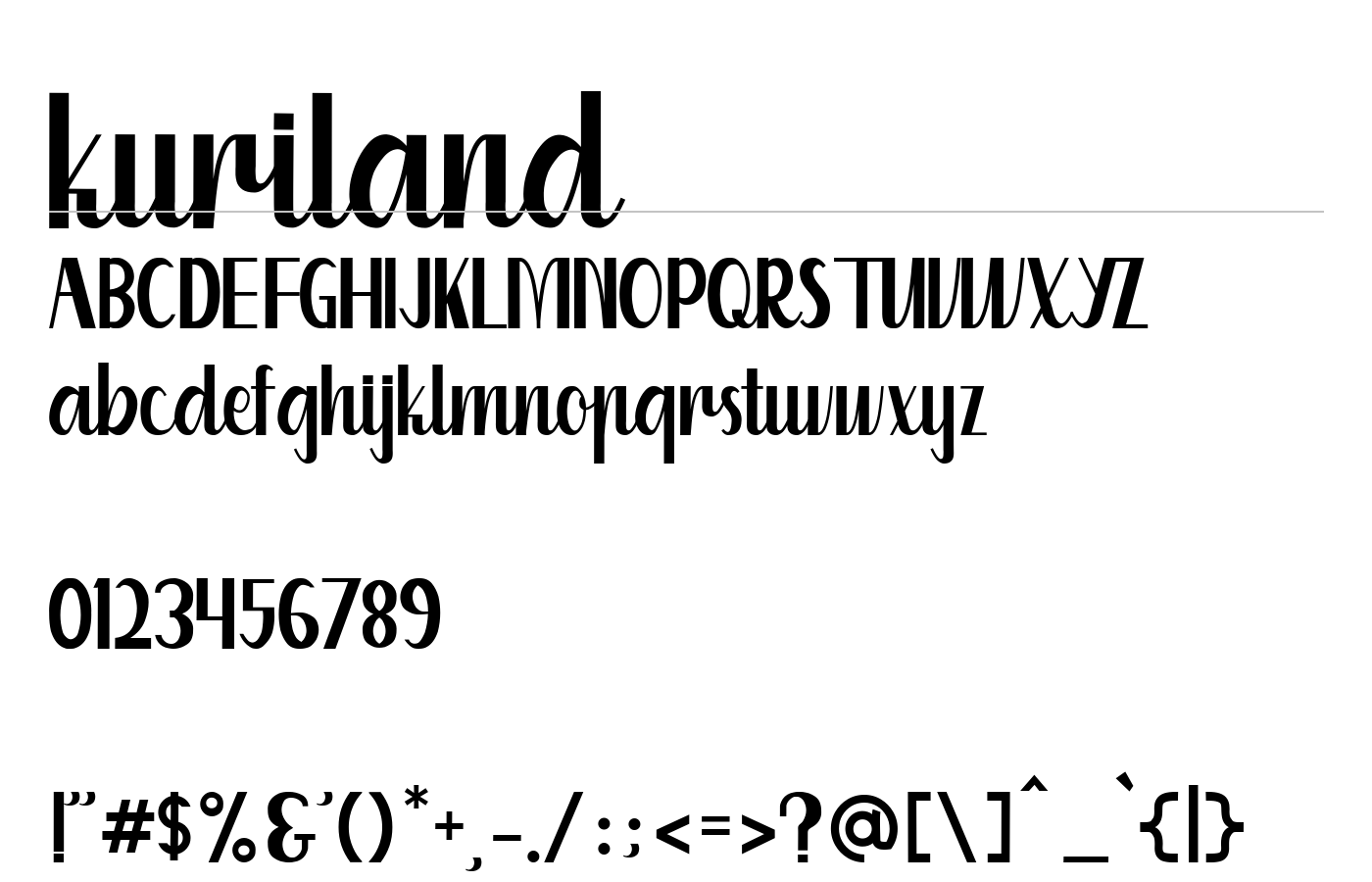
Kuriland is a distinctive sans serif font with an elegant, art deco-inspired style characterized by tall, narrow letterforms and a striking contrast between thick and thin strokes. Its unique blend of sharp geometric shapes and subtle curvilinear details brings a sophisticated, vintage charm, making it ideal for eye-catching headlines, logos, and fashion branding that seek a modern yet nostalgic appeal. This font stands out for creative projects that want to convey luxury, refinement, and personality with a touch of playful elegance.
Kuriland
About Kuriland